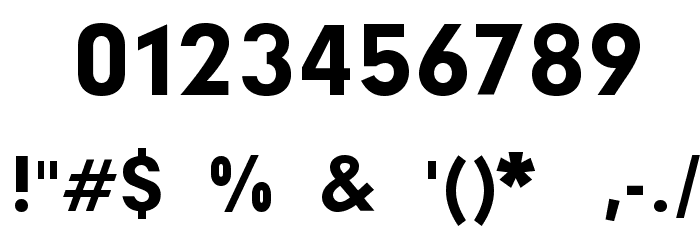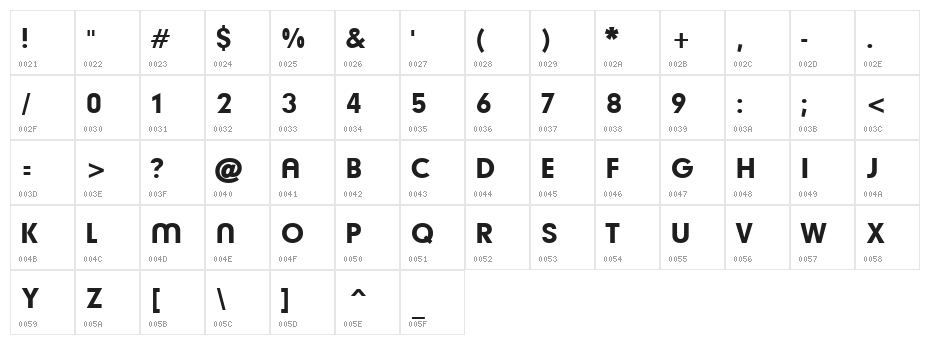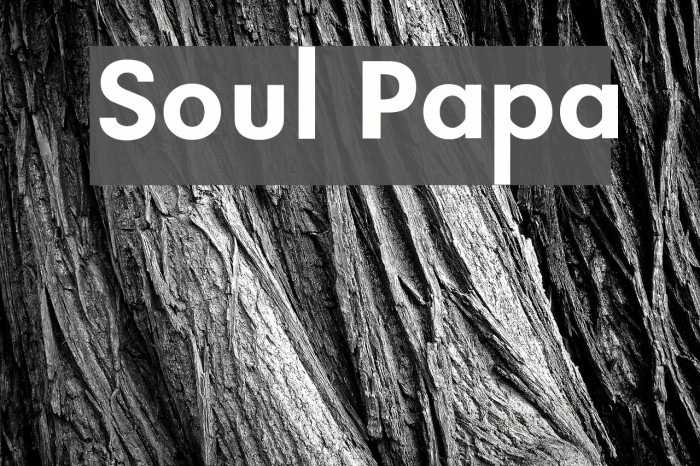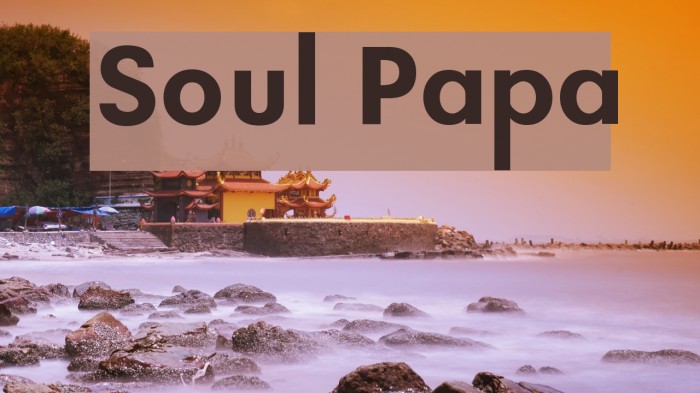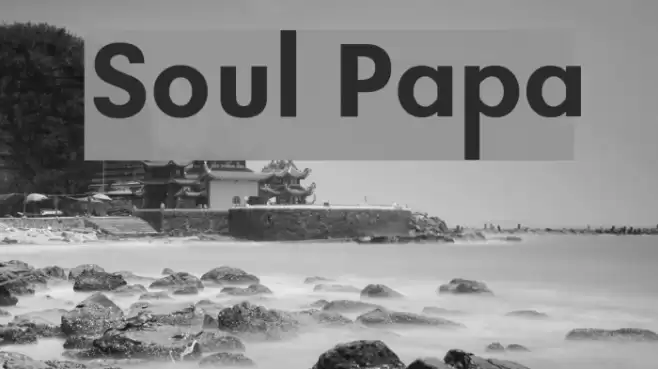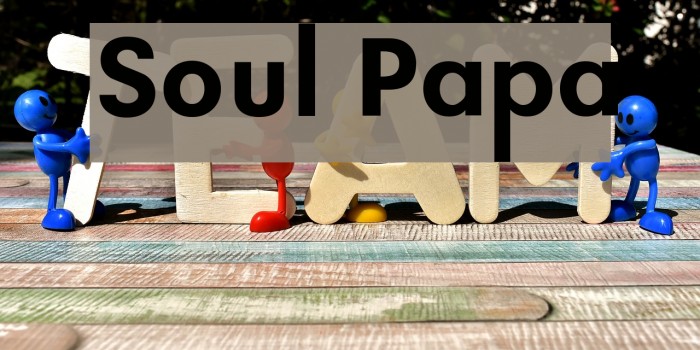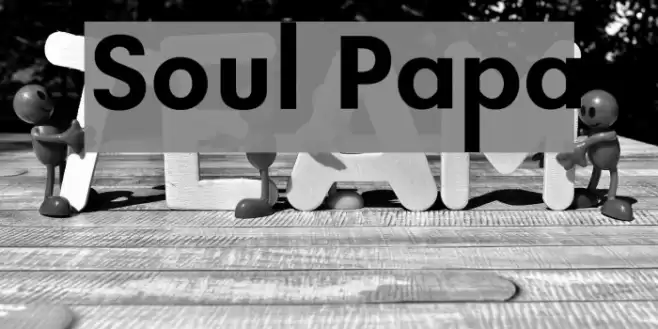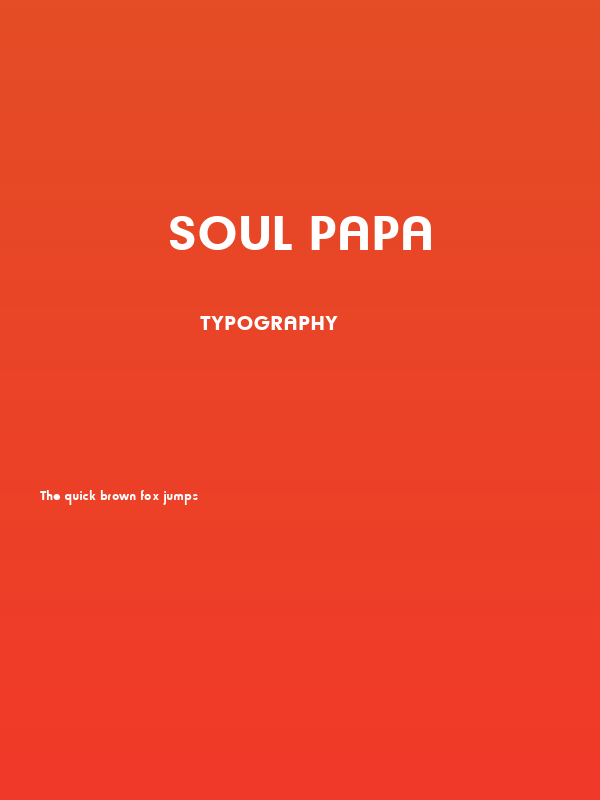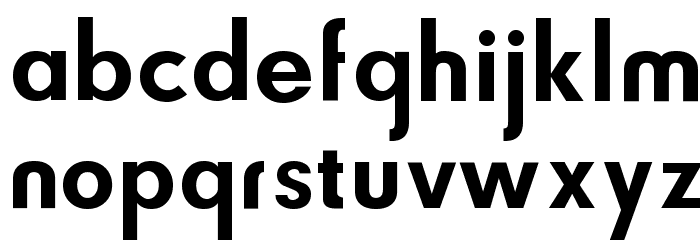
Soul Papa Font
Soul Papa Description
This font features a bold and modern sans-serif design, characterized by clean lines and a strong presence. The uppercase and lowercase letters are well-proportioned, with a consistent stroke width that gives a uniform appearance. The numerals are clear and easy to read, making them suitable for various applications. Special characters are included, maintaining the same bold style, ensuring versatility in design projects. The overall look is contemporary and professional, making it ideal for digital and print media.
| Proposed Projects | Ideal for branding, advertising, headlines, and digital media where a modern and bold statement is needed. |